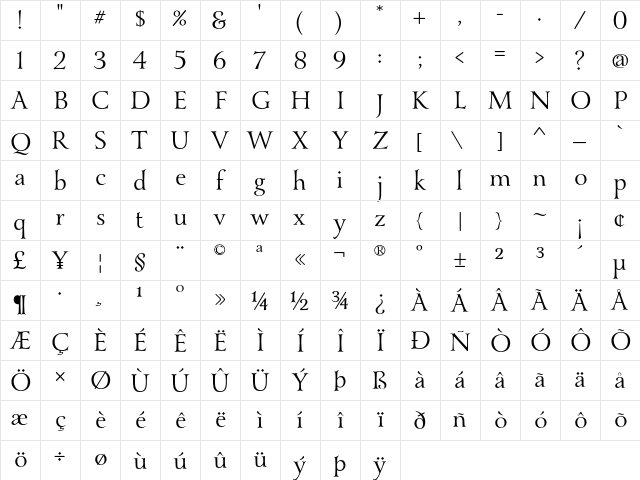
YanaR Regular
| Foundry | Laura Worthington |
| Designer | Laura Worthington |
Design Context for YanaR Typeface
YanaR is a composed and adaptable typeface that performs quietly and consistently across a wide range of design contexts.